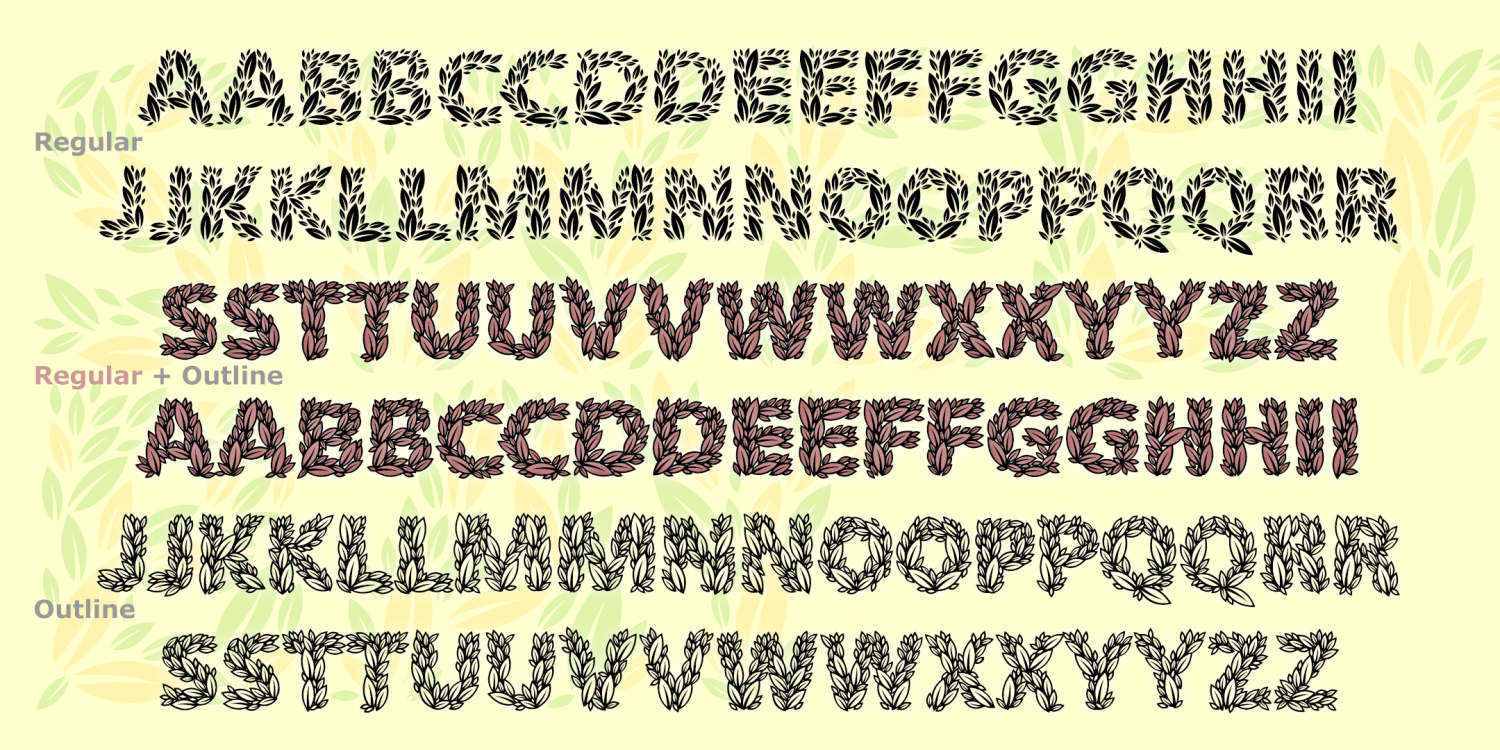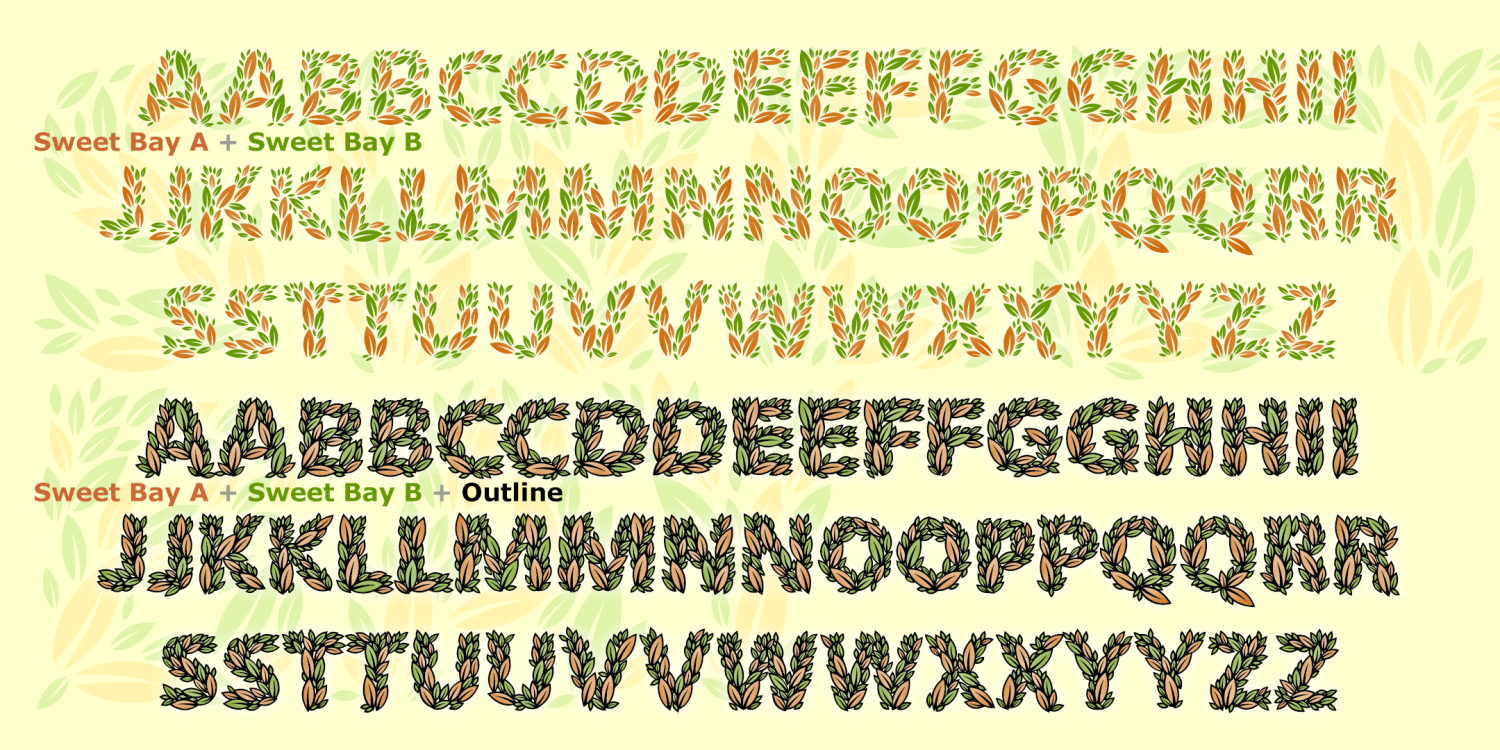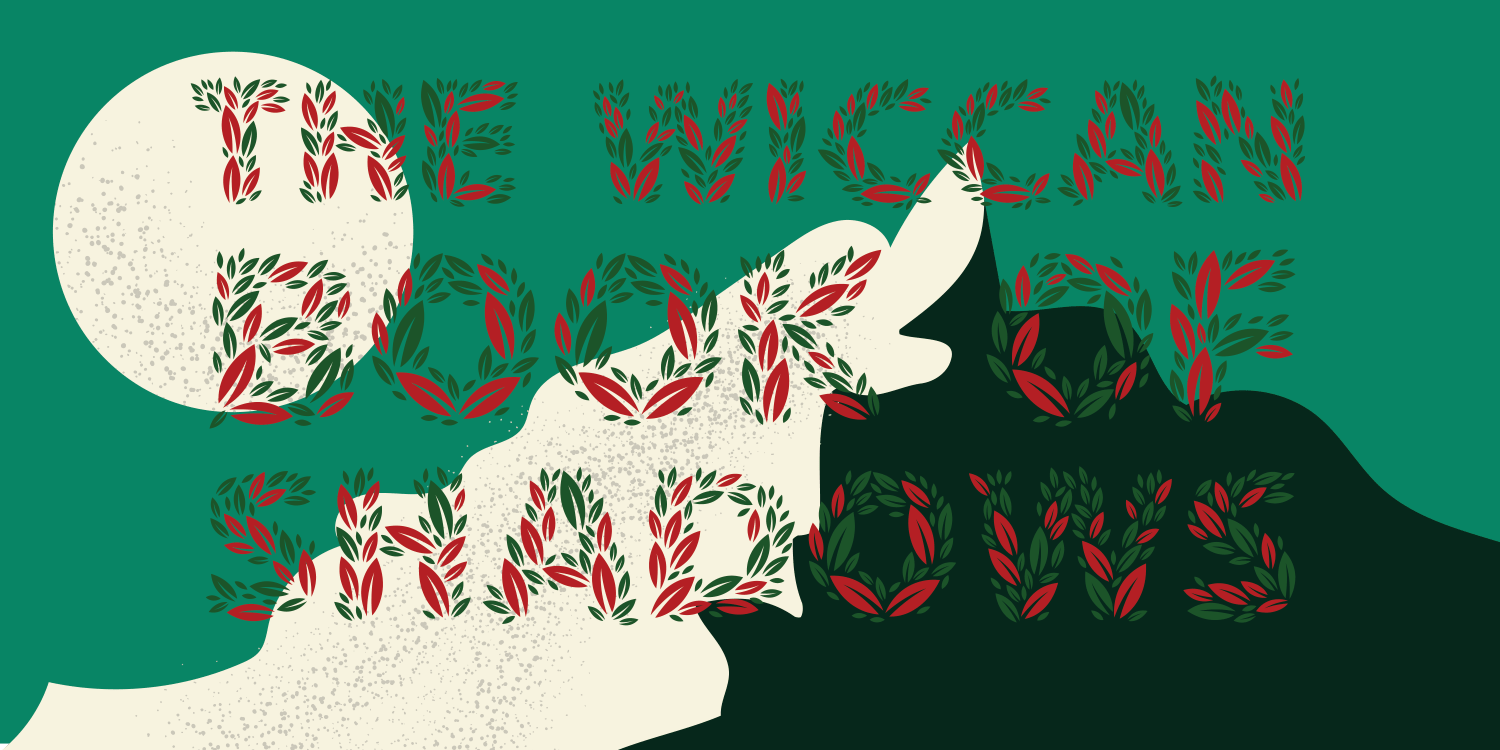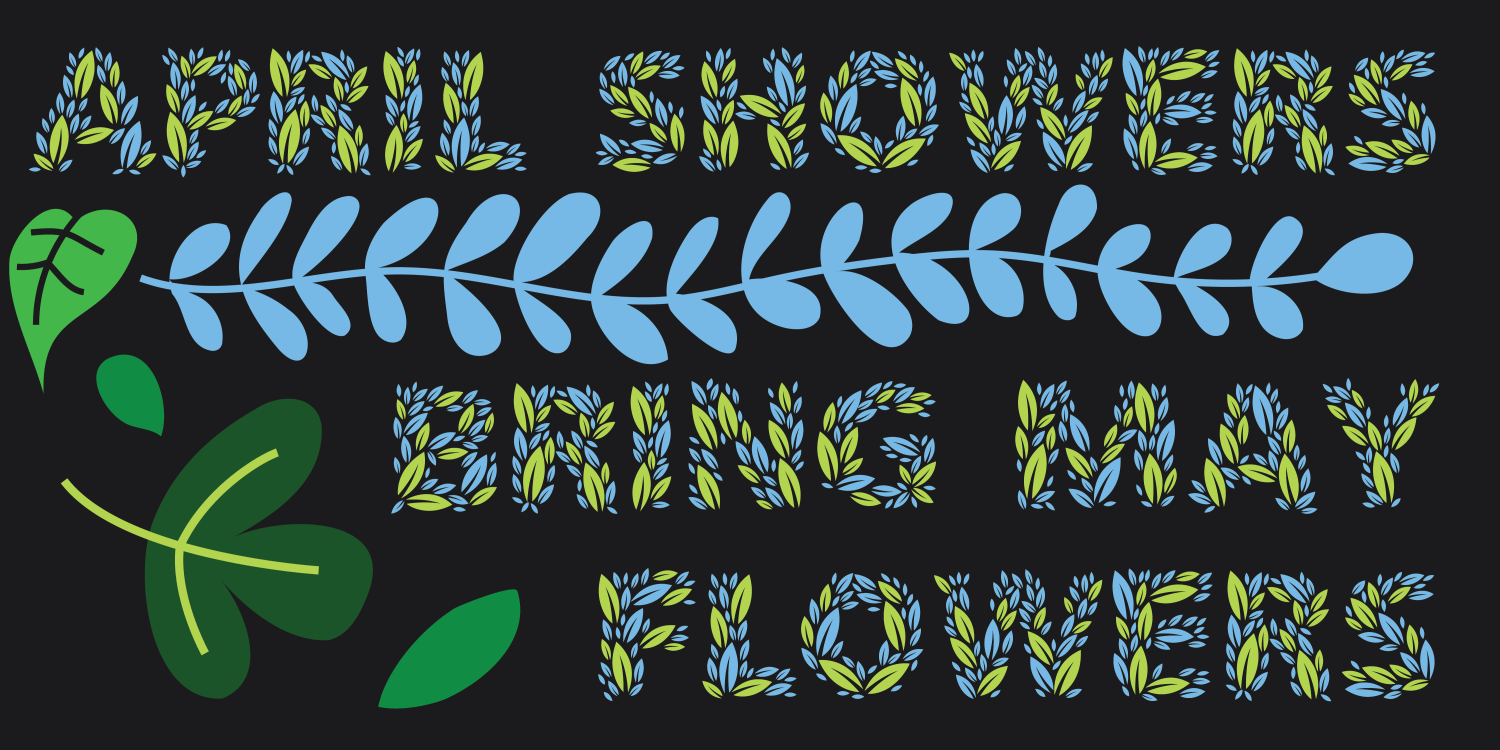
Sweet Bay
SWEET BAY is a family of plant-based fonts: the letters are made completely of leaves for a fresh, natural feel. The Regular and Outline fonts have all the leaves and can be used together or separately. Component fonts A and B each have half the solid leaves and can be layered together in different colors to create richer and deeper effects. All caps, but two versions of each letter for a more hand-lettered look.